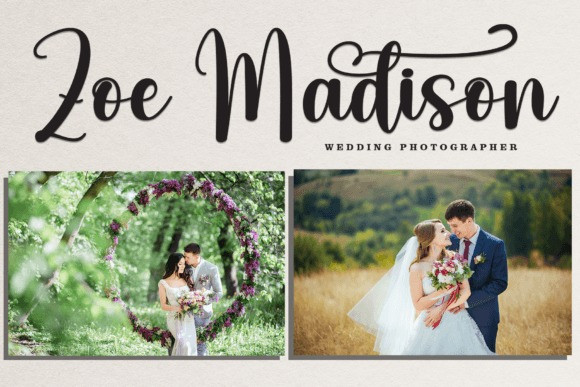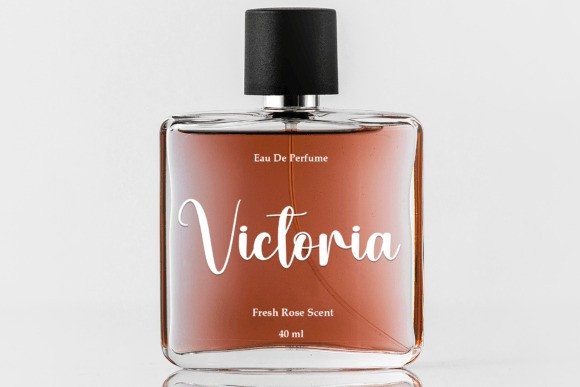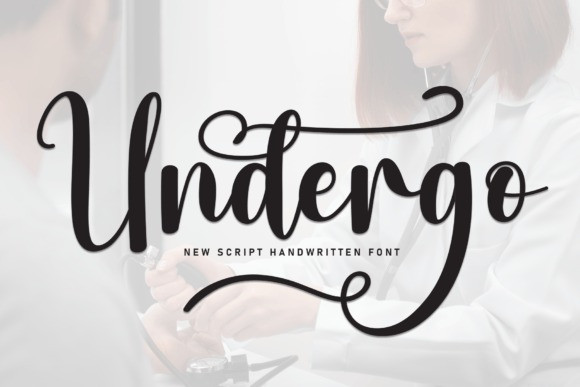
Undergo Font
Undergo Font the latest style letters are perfect for wall displays, wedding invitations, social media post logos,advertisements, product packaging, product designs, labels ,photography ,watermarks ,invitations, stationery, and any project that requires taste handwriting.